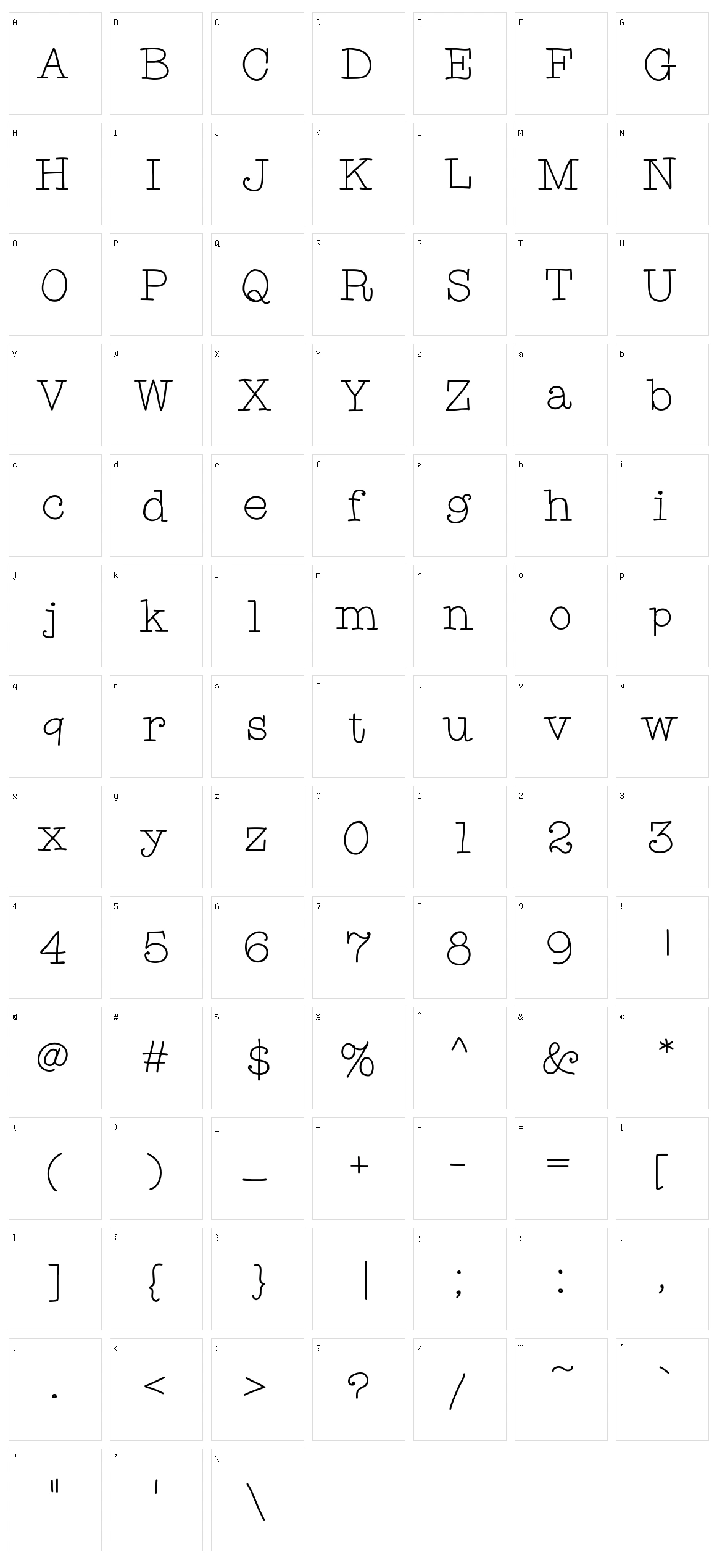
The free font Limetart is carefully designed by Daisy Mason, showcasing a thoughtful balance of creativity and usability and falls under the Typewriter font style. When you download the ZIP file, it contains only 16.06 KB of font files, making it lightweight and quick to download. Please review the license details below to understand permitted usage and distribution rights. If license information is not available, we recommend using this font for personal projects only or contacting the author directly for commercial usage permissions.